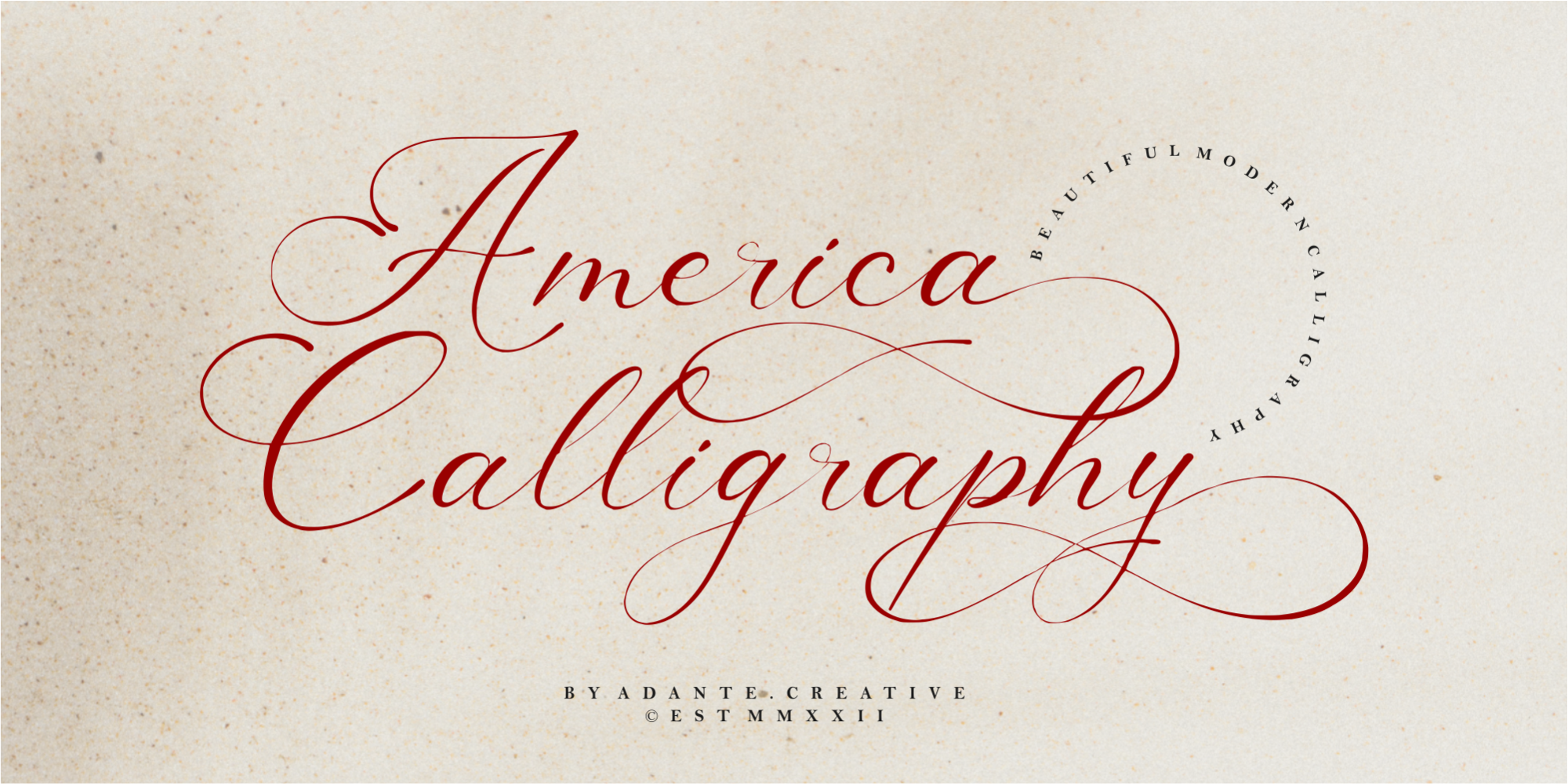
If you're looking for an elegant, flowing script typeface with a classic calligraphic charm, America Calligraphy Font Free Download is the perfect choice for your creative projects. This beautiful font features graceful, hand-drawn letterforms with sweeping strokes and delicate curves, making it ideal for wedding invitations, logos, branding, certificates, product packaging, and greeting cards. Its romantic, timeless style adds sophistication and warmth to any design.
America Calligraphy Font balances artistic flair with excellent readability, offering versatility across both print and digital platforms. It includes ligatures, stylistic alternates, and multilingual support, giving designers flexibility to craft unique, personalized typography. Whether you're creating a signature logo or designing elegant stationery, this font delivers beauty, class, and refinement.